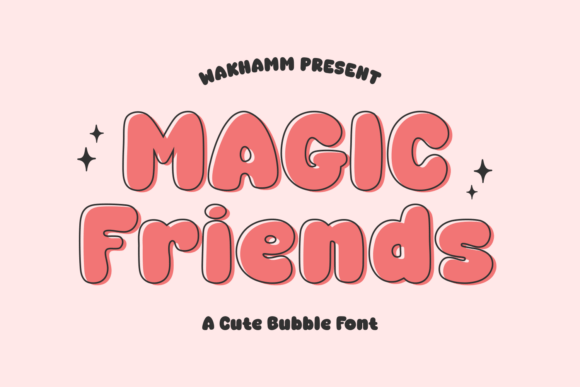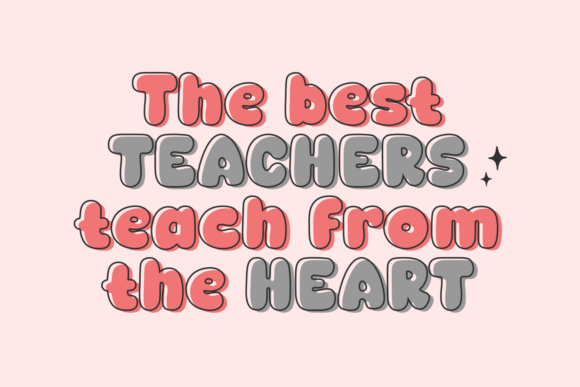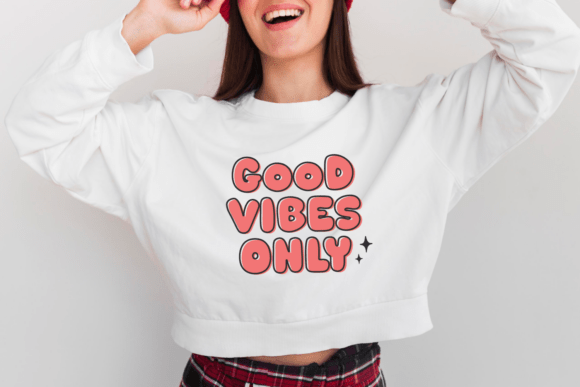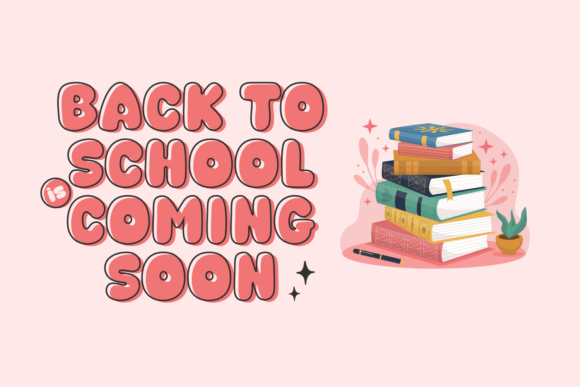
Magic Friends Font: A Playful Bubble Font for Cute Designs
About the Magic Friends Font
Step up your design game with Magic Friends Font, a font that exudes confidence and style. Ignite your imagination with Magic Friends, an enchantingly engaging bubble font brimming with whimsy! The font’s gentle contours paired with its bold demeanor create an ideal blend for captivating headlines, standout posters, attention-grabbing social media graphics, and unforgettable branding. Imbue your designs with a whimsical extrusion by harnessing the versatility and joy radiating from this delightful font.
Magic Friends Font excels in applications requiring high visual impact, such as large-scale headlines, posters, and short-form social media content. Its playful nature makes it ideal for children’s products, entertainment brands, and projects with a lighthearted, whimsical feel. However, its bubbly forms are less suitable for body text or lengthy passages; readability suffers at smaller sizes.
Pairing Magic Friends with a clean sans-serif like Open Sans for body copy creates a strong contrast, balancing the font’s boldness with easy readability. For a more sophisticated look, consider pairing it with a classic serif like Garamond for a touch of elegance. Avoid pairing it with other highly decorative fonts, as this can create visual clutter.
The overall personality of Magic Friends is cheerful and playful, yet possesses a certain boldness. It’s best suited for brands that want to communicate fun, approachability, and a sense of youthful energy.
Magic Friends Font Usage Examples
Magic Friends Font Example